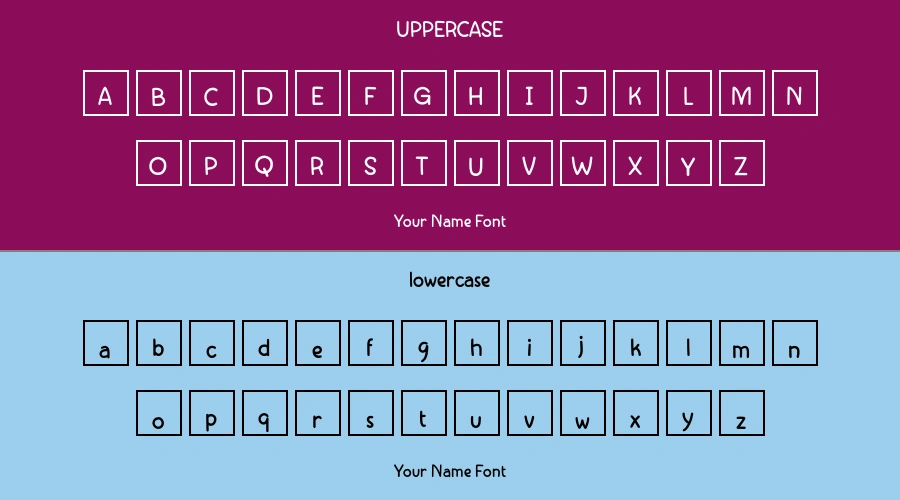
About Your Name Font
Your Name Font stands out for its distinctive combination of organic curves and reliability. Ideal for government publications, it provides the distinctiveness and technical sophistication that professional projects demand. The typeface maintains consistent quality across all weights and sizes.
Key features include refined brush influence and practical stylistic sets, enhancing typographic expression. In technical manuals applications, Your Name Font demonstrates exceptional compatibility. The x-height proportion and cultural resonance contribute to its distinctive character and professional appeal.
Your Name Font |